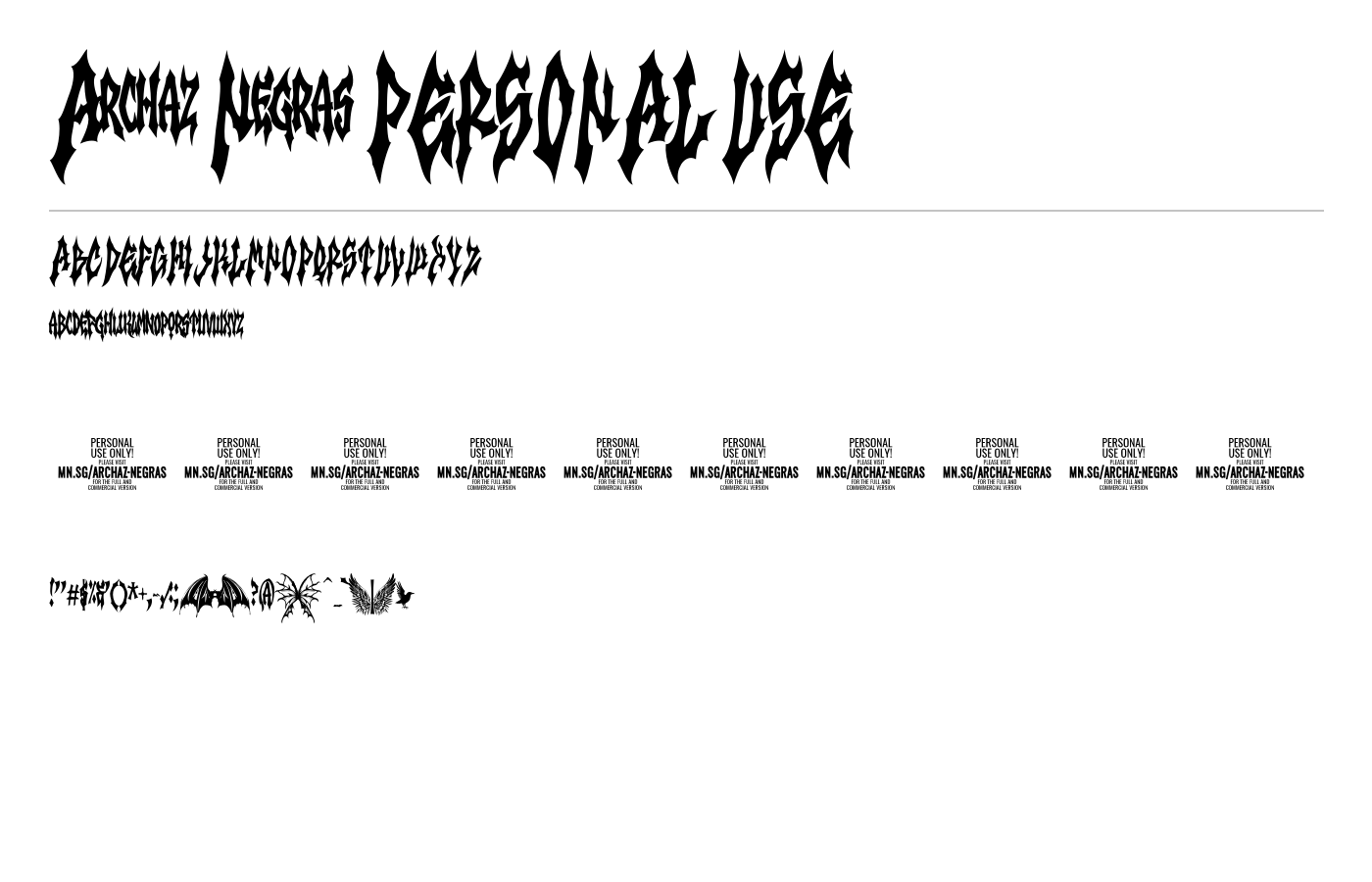
Archaz Negras is a bold, decorative display font with a gothic and edgy personality, featuring sharp, jagged letterforms that create a dramatic and intense visual impact. Its condensed height and high contrast strokes paired with unique fantasy-style symbols make it ideal for creative projects needing a dark, mysterious vibe, such as posters, album covers, or themed branding. This font stands out best in large sizes and headline uses where its striking details can be fully appreciated.
Archaz Negras PERSONAL USE Font
About Archaz Negras PERSONAL USE Font